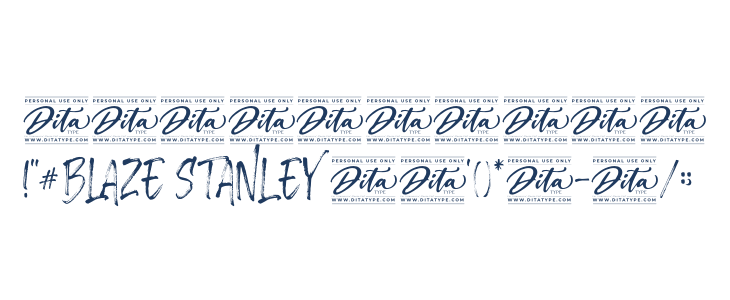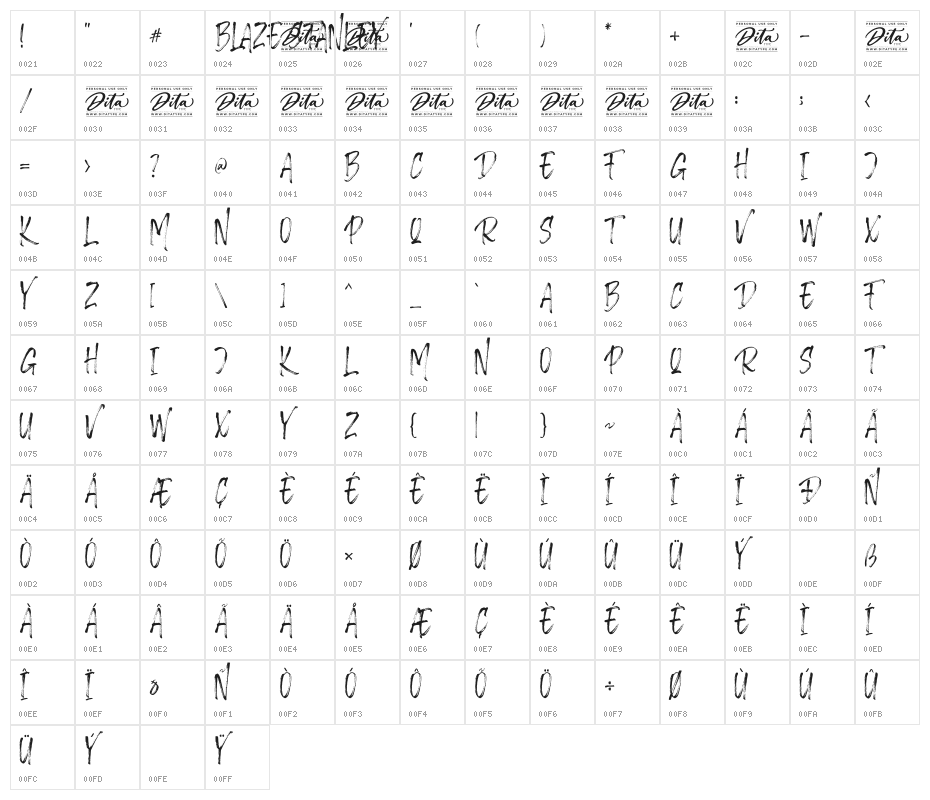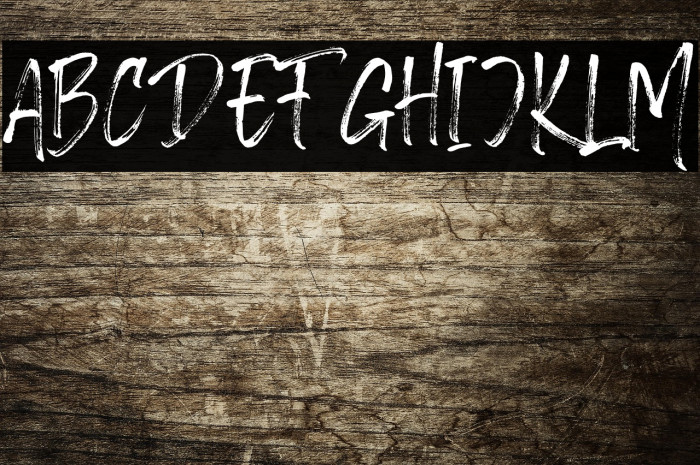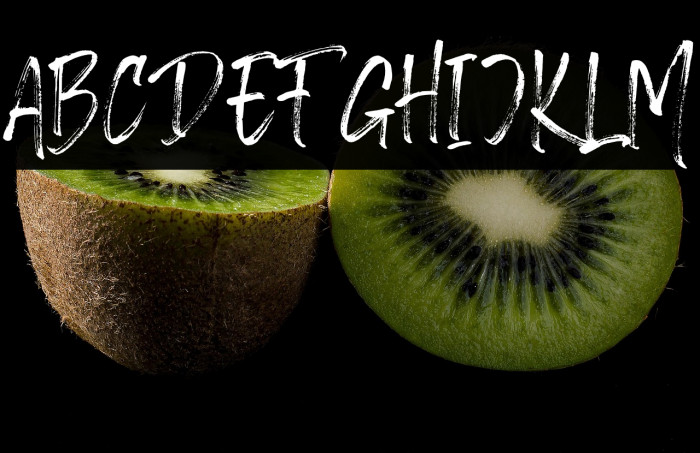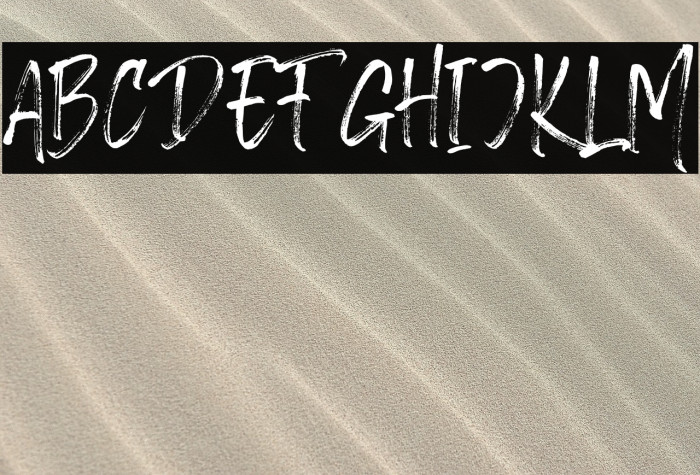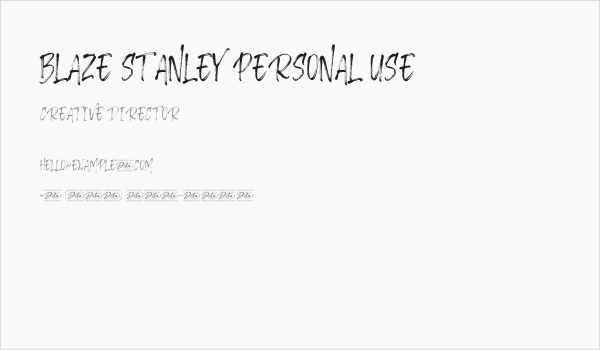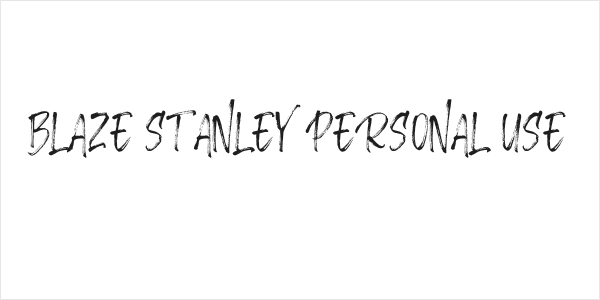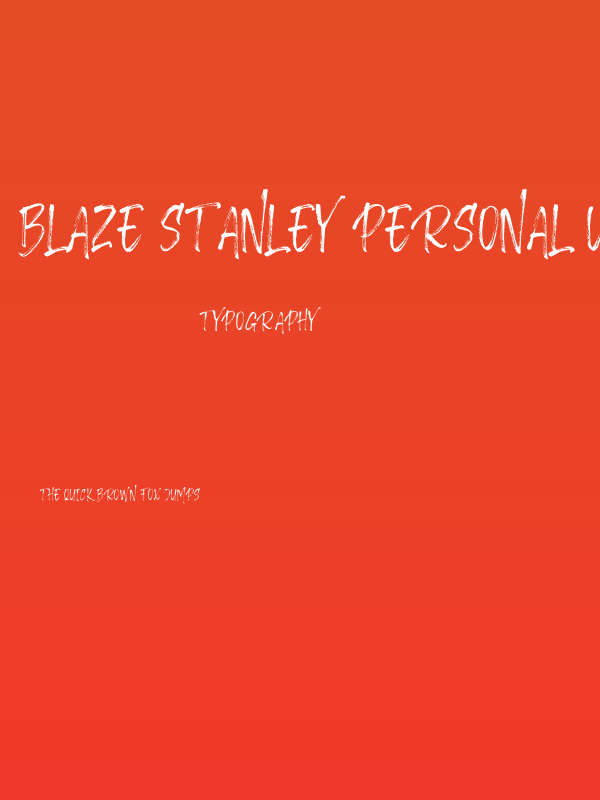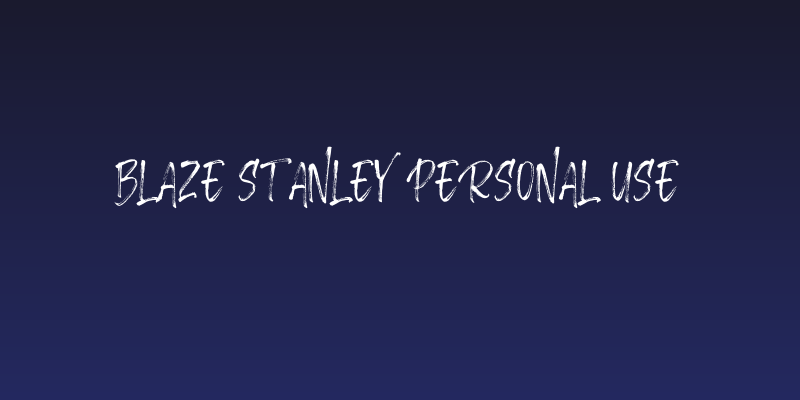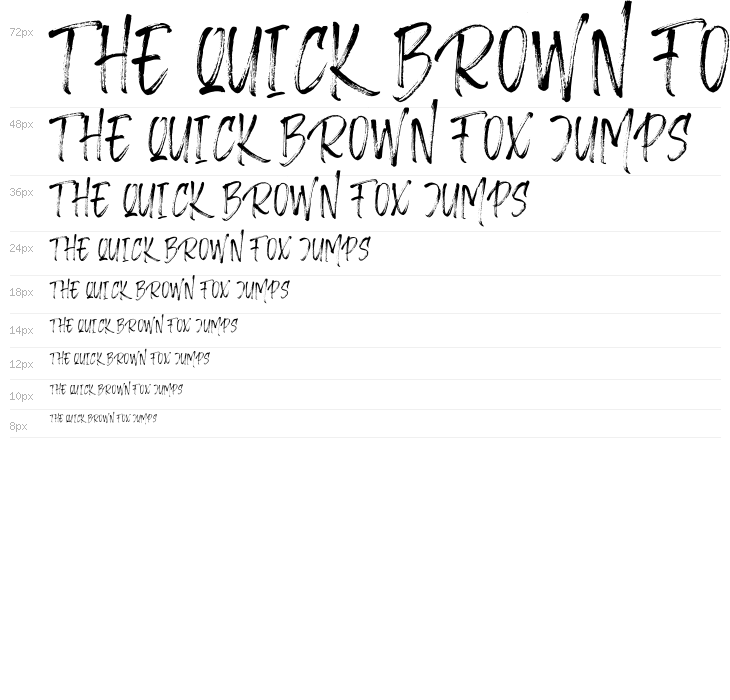
Blaze Stanley Personal Use Font
Blaze Stanley Personal Use Description
This font exhibits a bold and expressive handwritten style, characterized by its dynamic brush strokes and textured appearance. The letters are crafted with a sense of movement and energy, creating a lively and artistic feel. The uppercase and lowercase letters maintain a consistent style, with varying stroke widths that add depth and interest. The numbers and special characters are equally expressive, complementing the overall aesthetic. This font is ideal for projects that require a personal touch or a creative flair, such as invitations, posters, or branding materials.
| Proposed Projects | Ideal for creative projects like invitations, posters, and branding materials. |